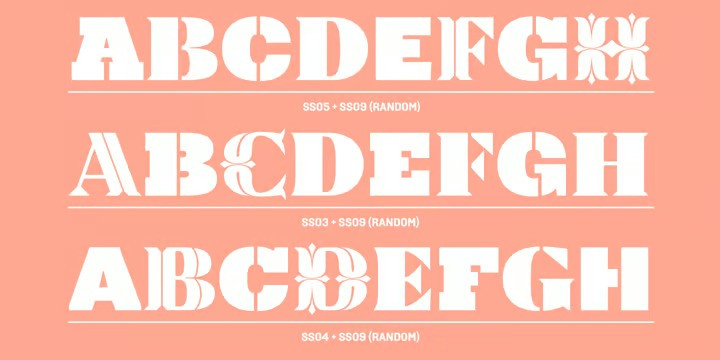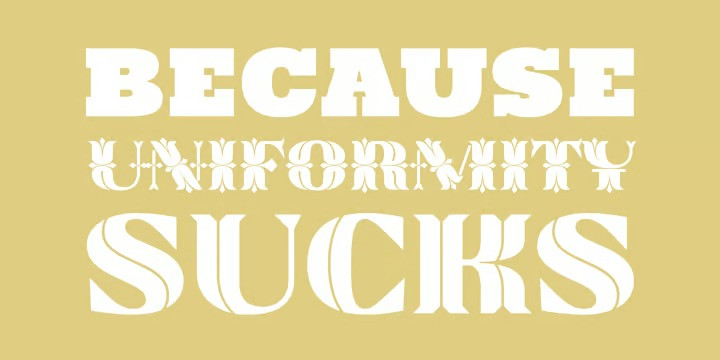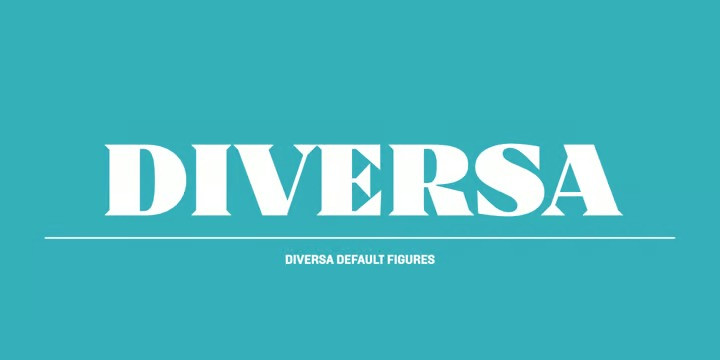
Diversa Font
Diversa Font is a typeface that takes a very different path from the most fonts, both in terms of appearance and usability. Diversa is a single typeface with 9 fonts within, containing 2760 glyphs*, divide in 9 stylistic sets, but the main difference is that all the glyphs are kerned with each other, which means you can swap glyphs between stylistic sets and keep them properly kerned – unbracketed serifs, engraved, stencil, sans, slab, baroque, stencil sans, stencil slab and a stylistic set that mixes them all in a rotative feature. Diversa: Because uniformity sucks! *requires applications which have Open Type access/features.